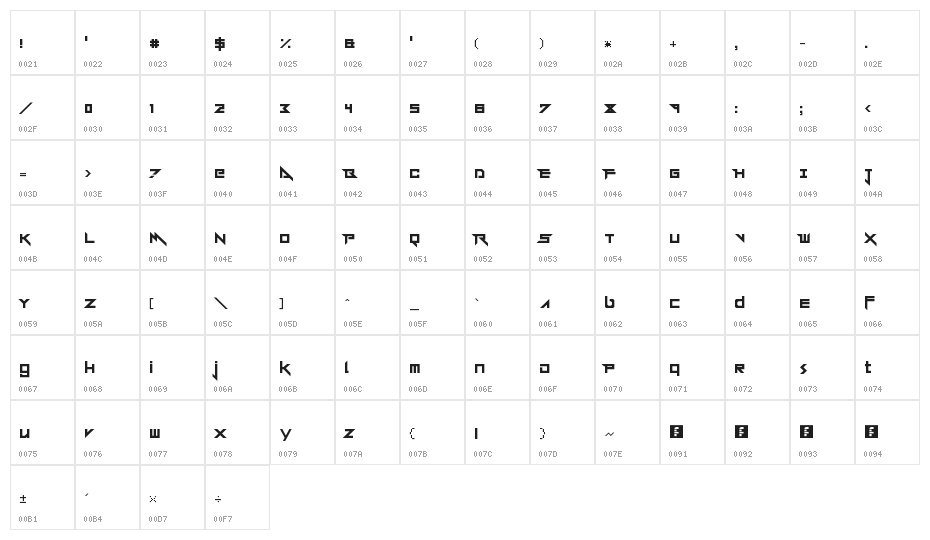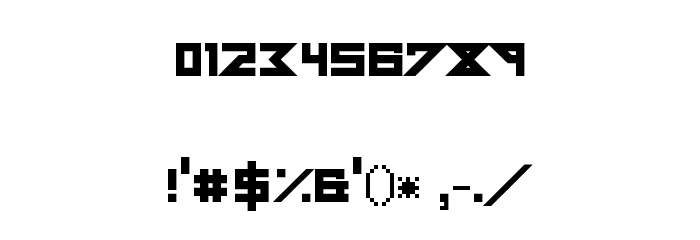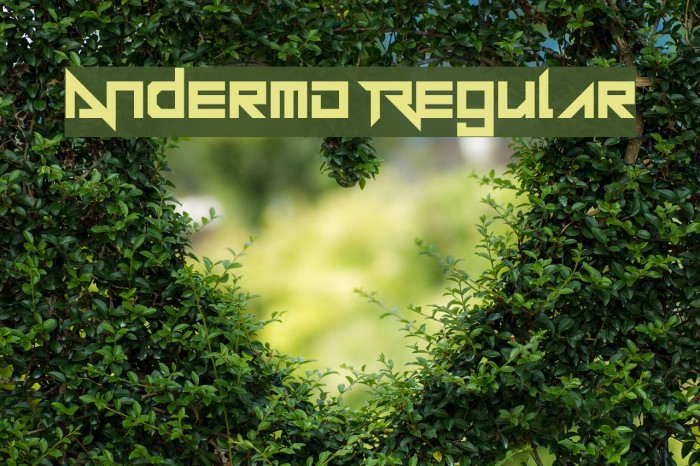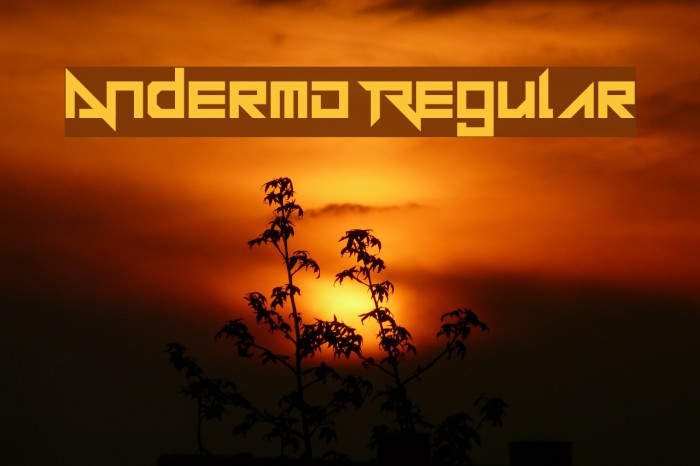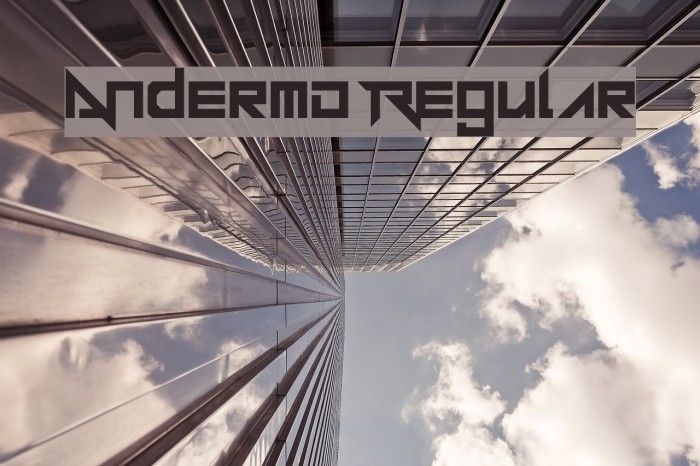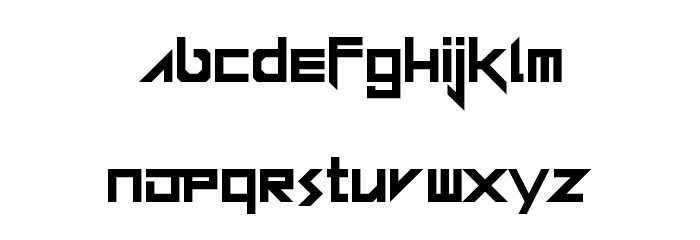
Andermo Regular Font
Andermo Regular Description
This font features a bold, angular design with sharp, geometric edges that convey a futuristic and edgy aesthetic. The characters are crafted with a unique blend of straight lines and acute angles, creating a sense of movement and dynamism. The uppercase and lowercase letters maintain a consistent style, with a slight variation in size and alignment to distinguish them. Numbers and special characters are designed to match the overall angular theme, ensuring a cohesive look across all text elements. The font's distinctive style makes it stand out, ideal for projects that require a modern and unconventional appearance.